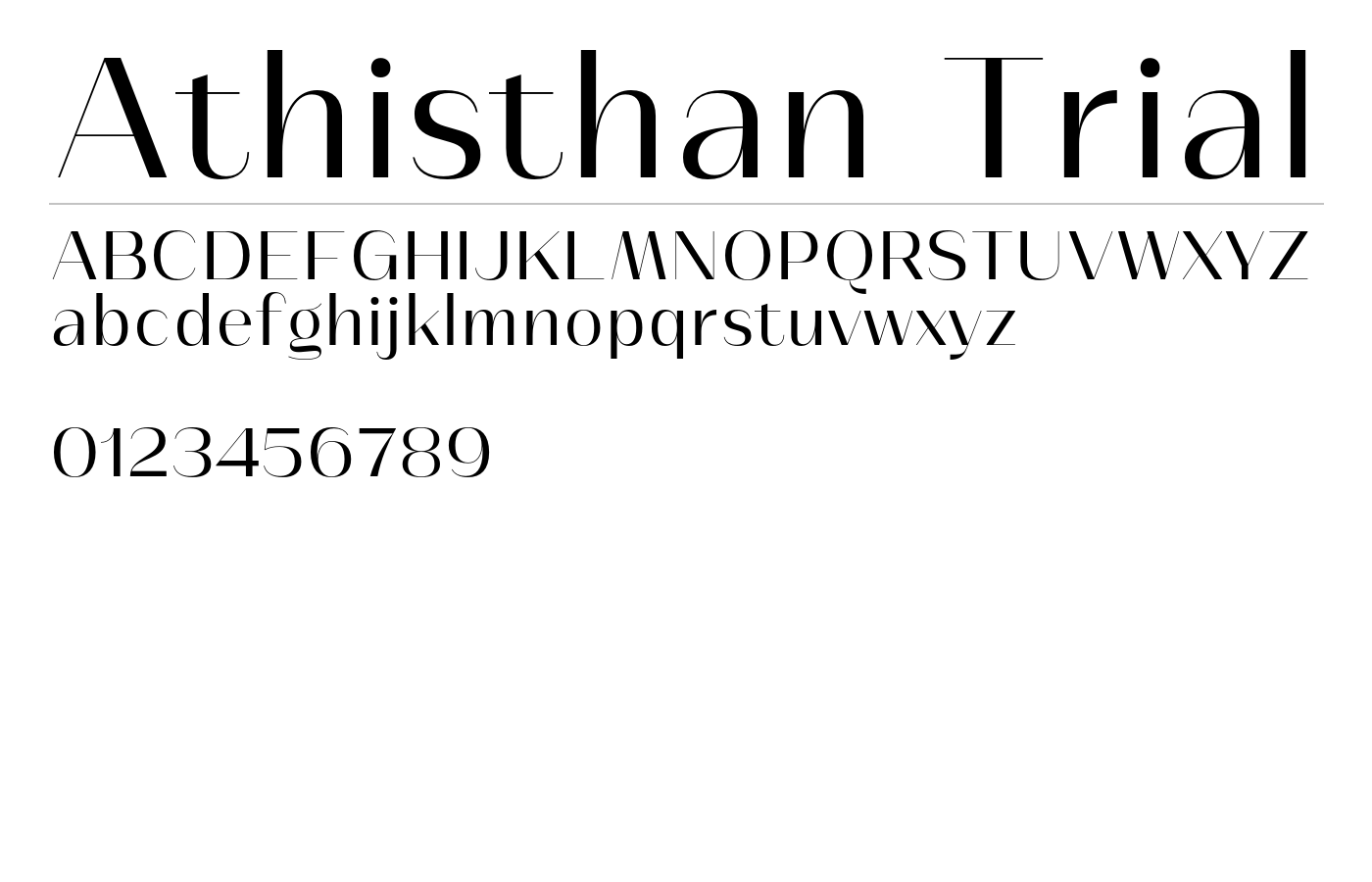
Athisthan Trial is a sleek and modern serif font with a high contrast between thick and thin strokes, giving it an elegant and refined feel. Its tall, narrow letterforms combined with subtle, stylish serifs make it ideal for luxury branding, editorial headlines, and sophisticated packaging where a sense of grace and exclusivity is desired. This font works beautifully to convey a polished and contemporary aesthetic while maintaining readability and visual interest.
Athisthan Trial Font
About Athisthan Trial Font
| Font family | Athisthan Trial Font |
| Languages supported | Latin, Thai, Symbols, Greek |
| Designer | Anupap Jaichumnan |